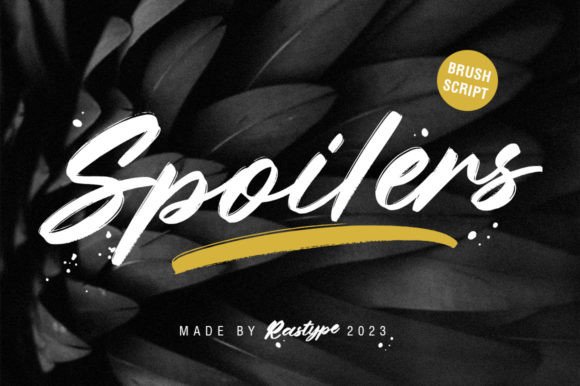
Are you tired of the same old boring fonts? Look no further than Spoilers Script Font, the perfect choice for hand lettering enthusiasts and creatives looking to add a touch of natural, handcrafted flair to their designs.
Crafted with care by rastype1010, Spoilers Script is a textured brush font that features unique underlines and ligatures to make your designs stand out from the crowd. Whether you're creating clothing designs, invitations, book titles, stationery designs, quotes, branding, logos, greeting cards, t-shirts, packaging designs, posters, or anything in between, Spoilers Script is the ideal choice for any project.
But Spoilers Script is more than just a beautiful font. It's also PUA encoded, which means you'll have access to all of the glyphs and swashes you need to bring your designs to life with ease. With Spoilers Script, you can say goodbye to frustrating font limitations and hello to endless creative possibilities.